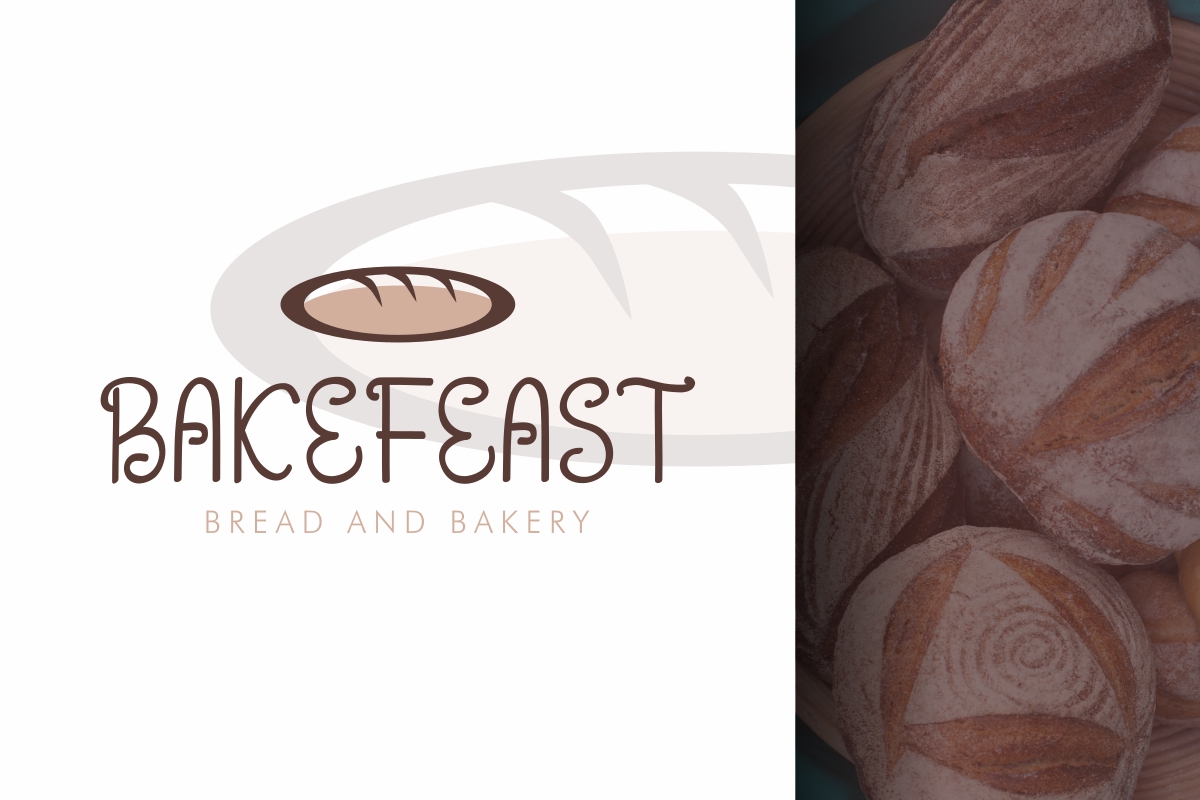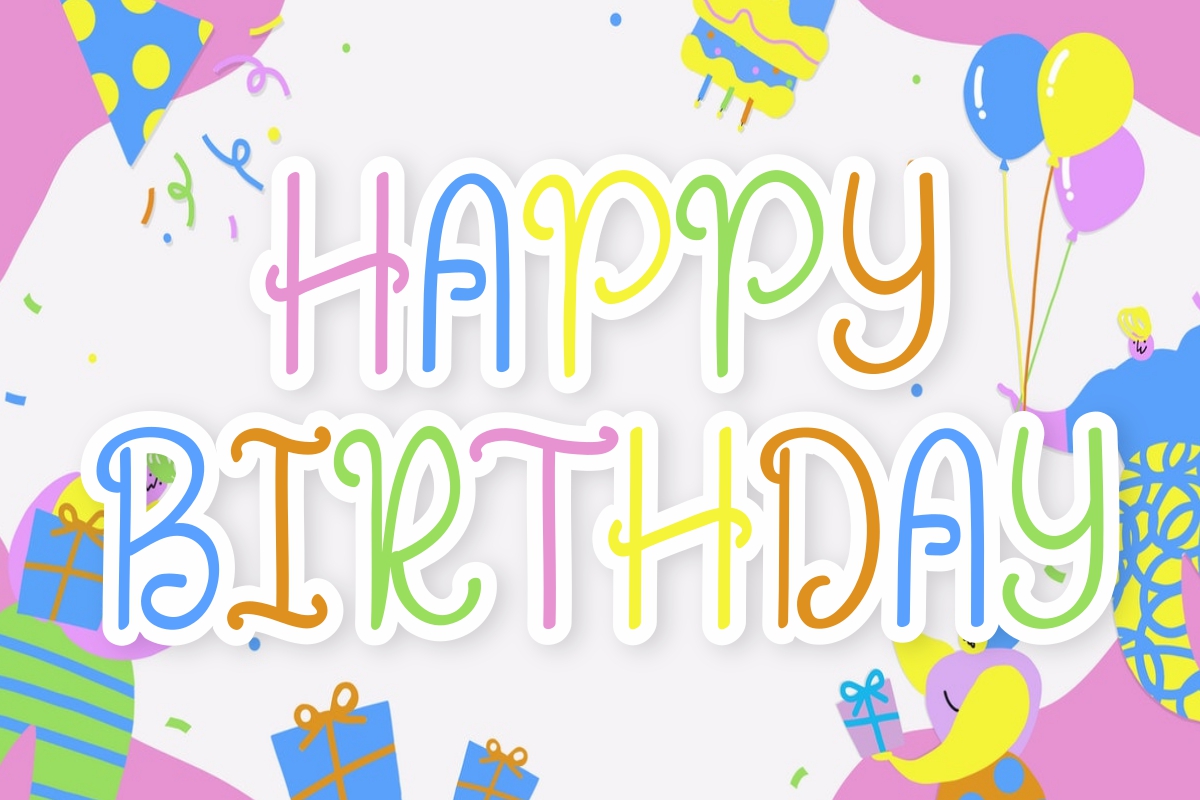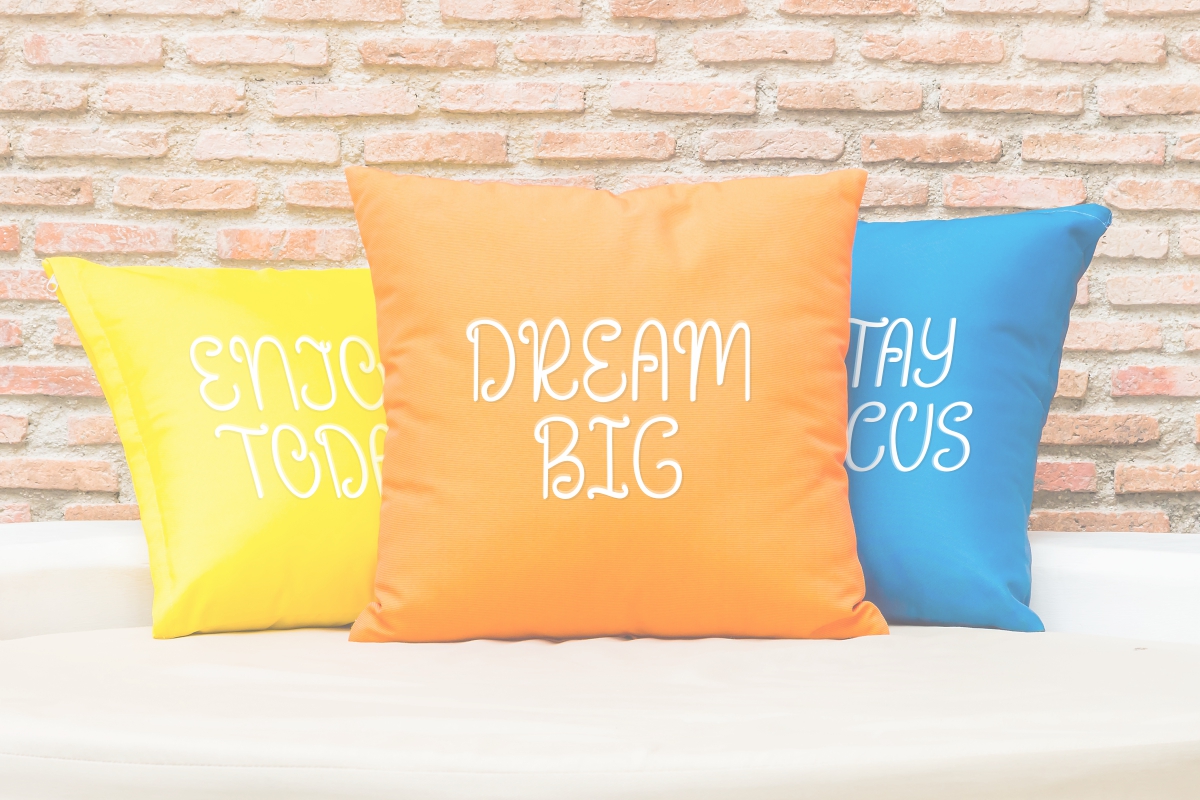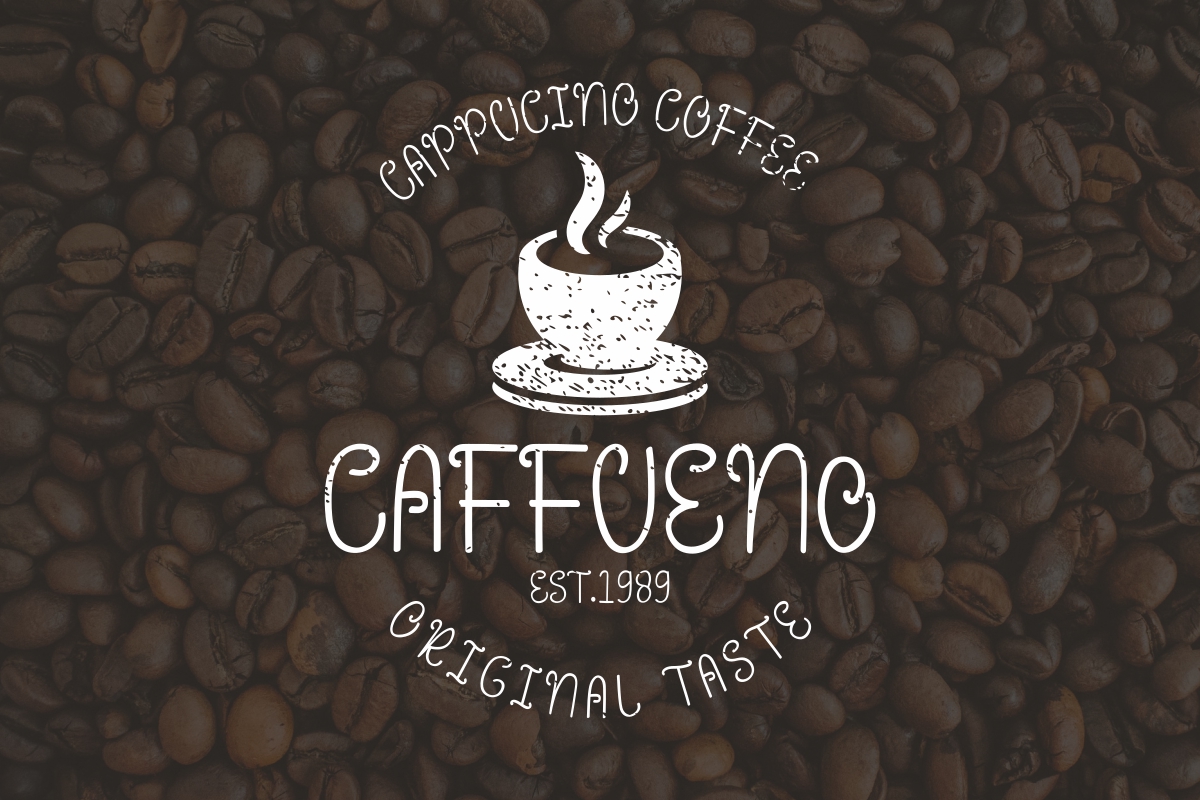
Historis Font
Historis Display Font
It’s a fancy display font with curly style. It was made in our Studio, Indonesia. Historis Font is an exclusive handmade font with unique styles : fun, casual, stylish and classic style. It has a great characters set, perfectly managed with well spaced and kerning. Historis Font will be great for any projects including : branding, logo (with extended license), stationery, business card, signage, flyer, brochure etc. Many industries will be match for this typeface: school, wedding, events, non profits foundation, florist, gardening, makeup artist, travel, hotel, musician etc